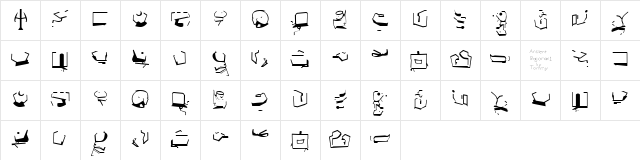
Complete StarTrek Bajoran Ancient i canon based glyph index. Displaying only characters natively supported by StarTrek Bajoran Ancient i canon based font.
StarTrek Bajoran Ancient is a composed and adaptable typeface that performs quietly and consistently across a wide range of design contexts.